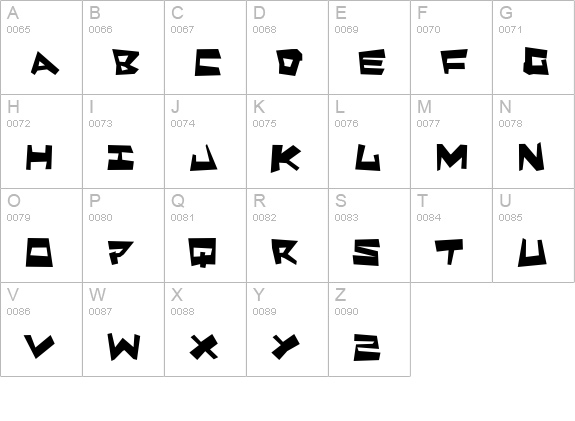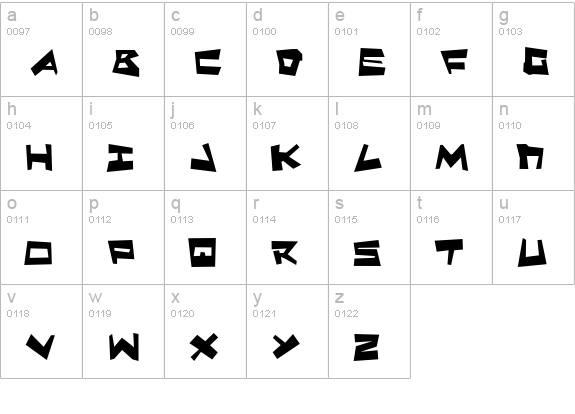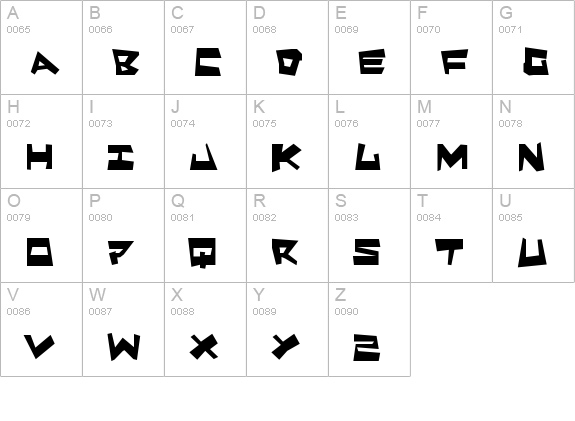
Introducing Quake & Shake Max, a mesmerizing and dynamic font that will shake up your design projects like never before. This bold and powerful typeface is specially crafted to add an extra dose of energy and excitement to your creative endeavors. Quake & Shake Max is the epitome of urban style, with its strong and confident letterforms that seem to pulsate with intensity. Its unique combination of sharp edges and fluid curves creates a striking visual impact that will captivate any audience. But what sets Quake & Shake Max apart is not just its impressive design, but also its accessibility. This font is freely available to download at FontsMarket.com, allowing designers of all levels to unleash their creativity without any limitations. Whether you're working on a personal project or a professional assignment, Quake & Shake Max is here to elevate your designs to new heights. With its extensive character set and variety of stylistic alternates, Quake & Shake Max offers endless possibilities for customization. From eye-catching headlines to attention-grabbing logos, this font is a versatile tool that will help you make a lasting impression. Embrace the power of Quake & Shake Max and let it bring a seismic shift to your design work. Download this incredible font for free at FontsMarket.com and unleash your creativity like never before. Get ready to make a statement that shakes the world!